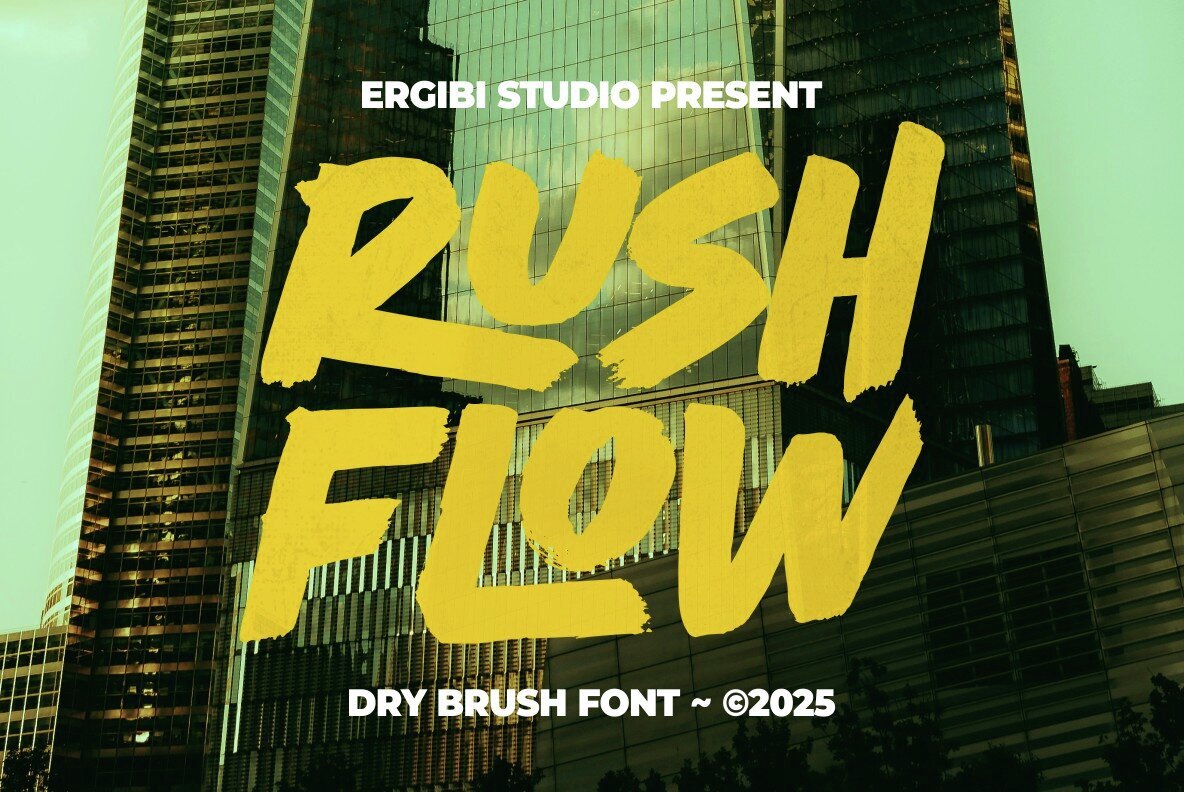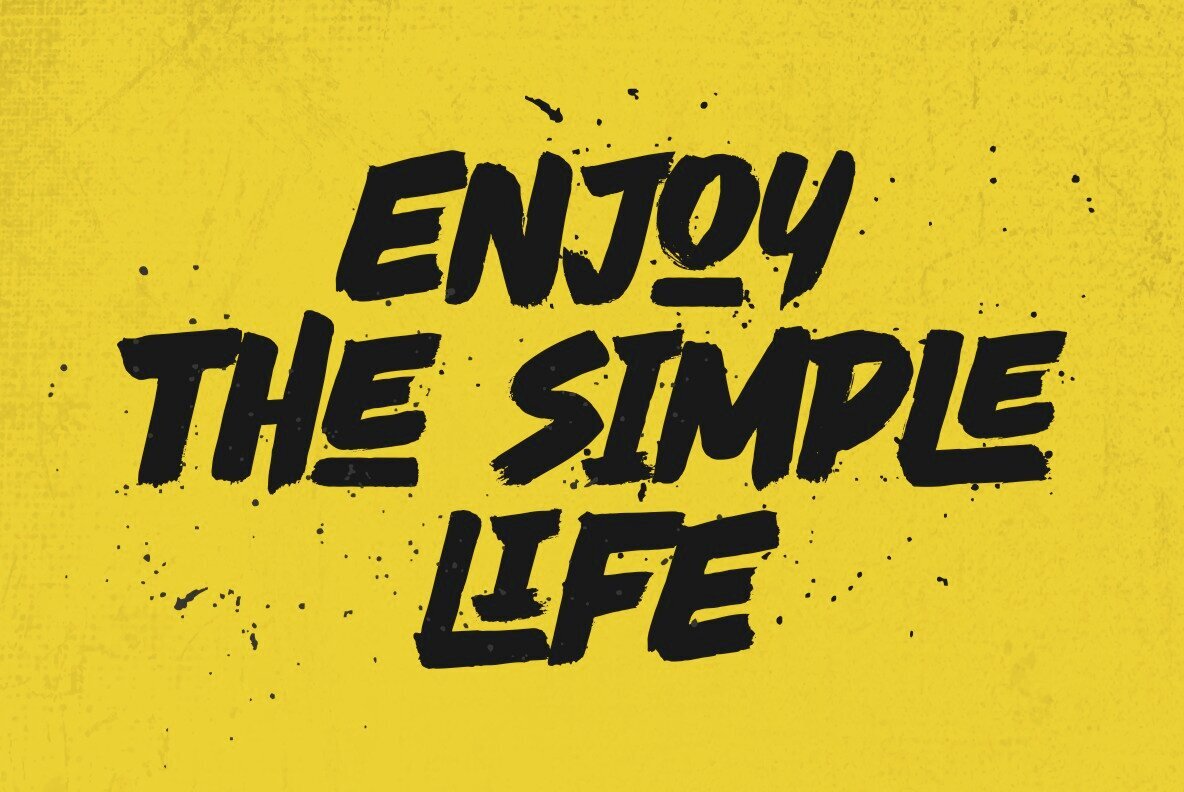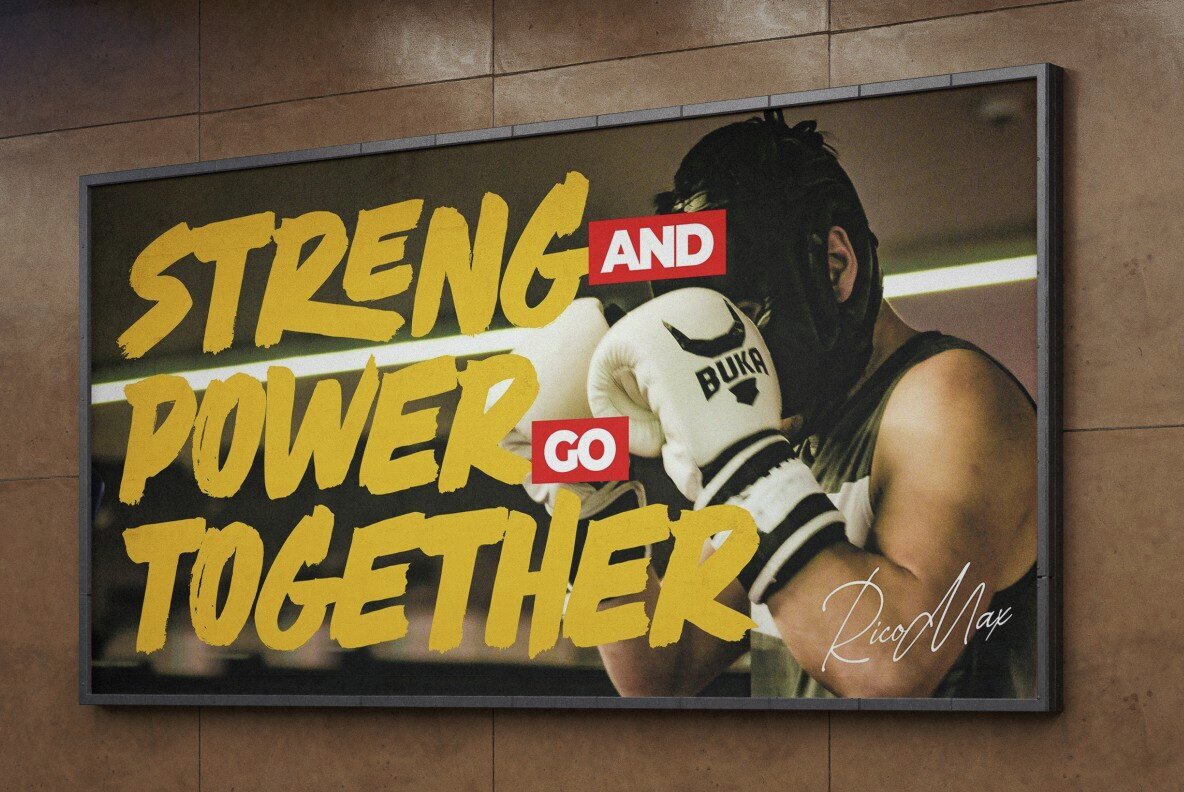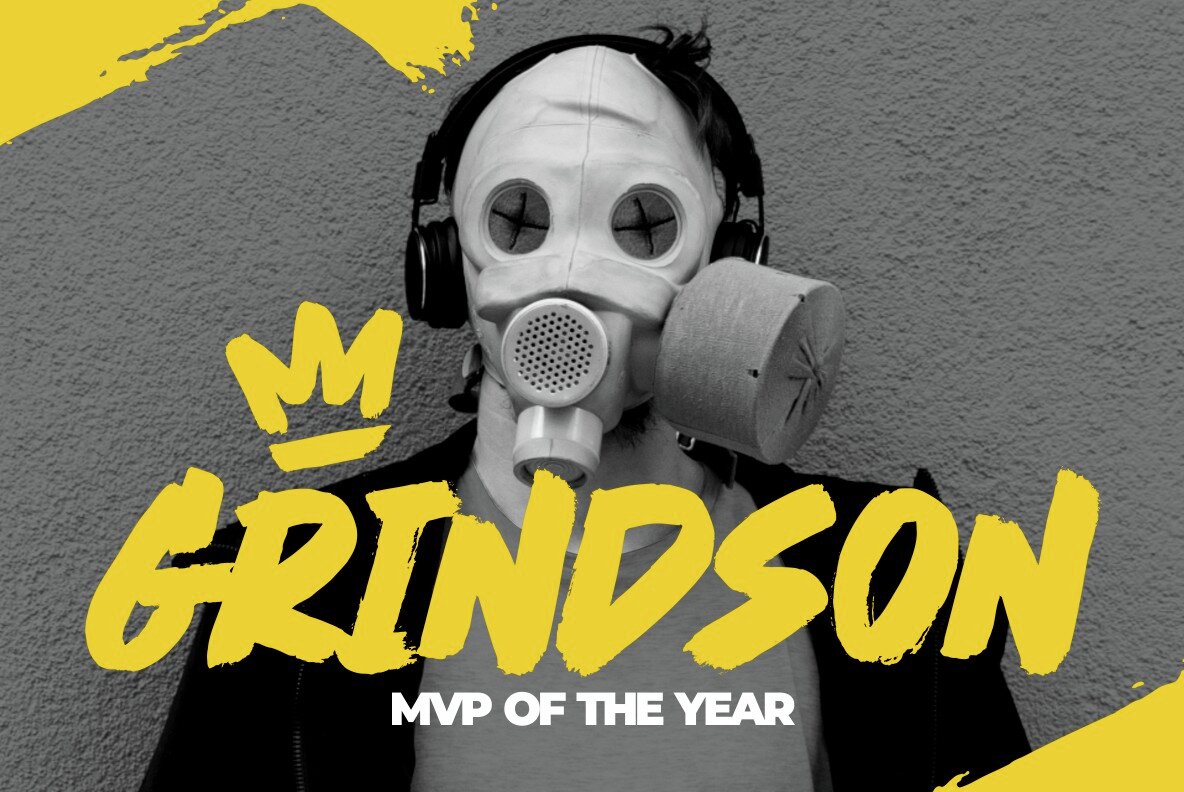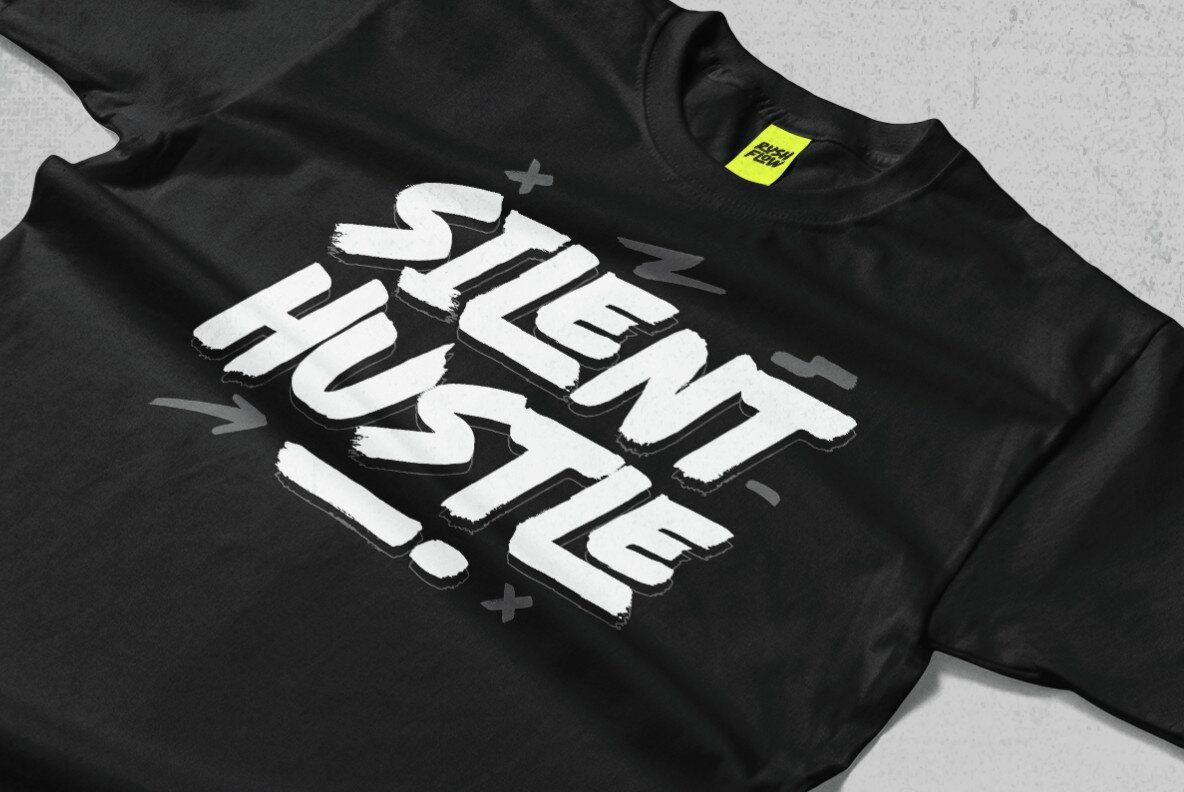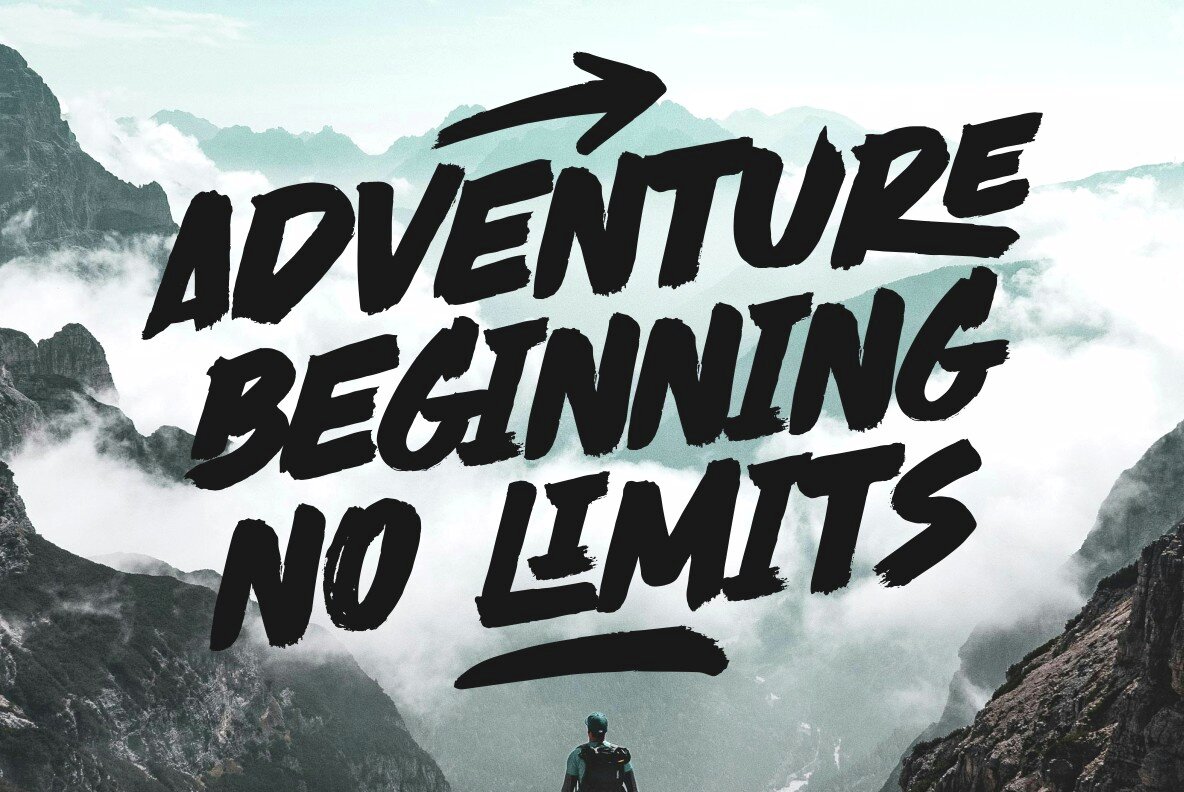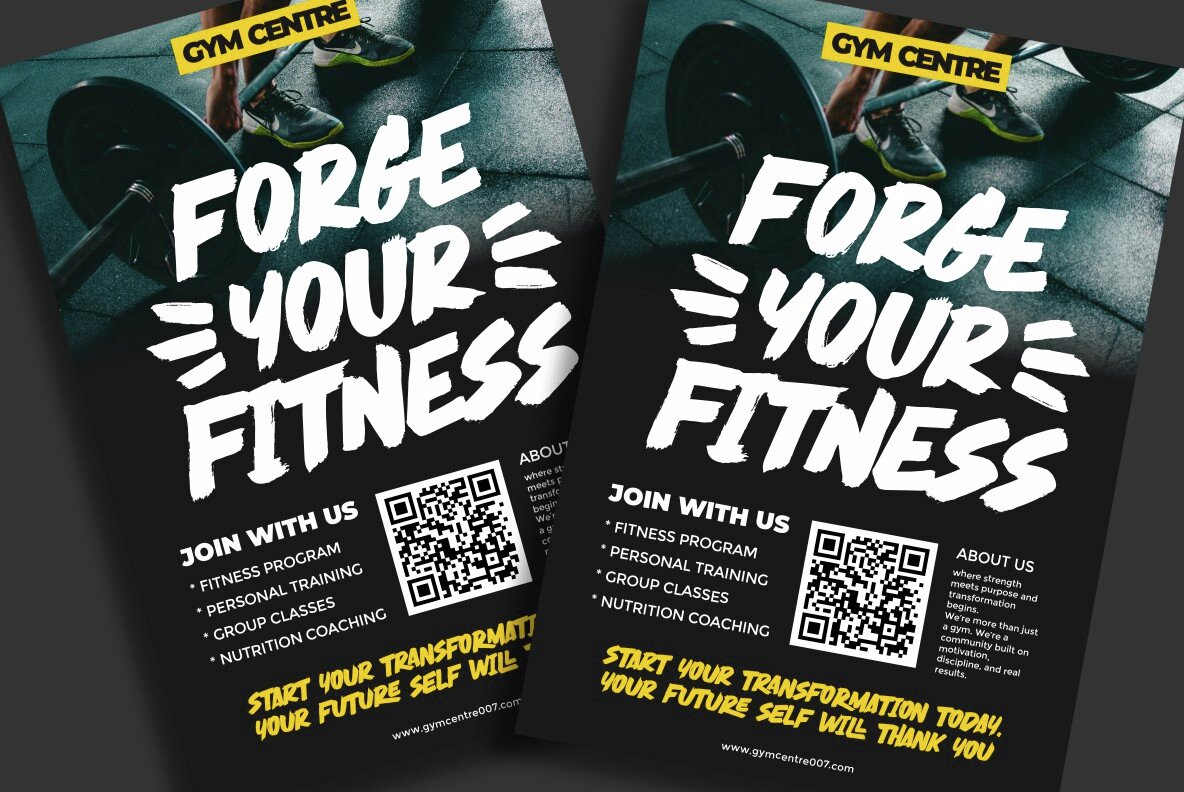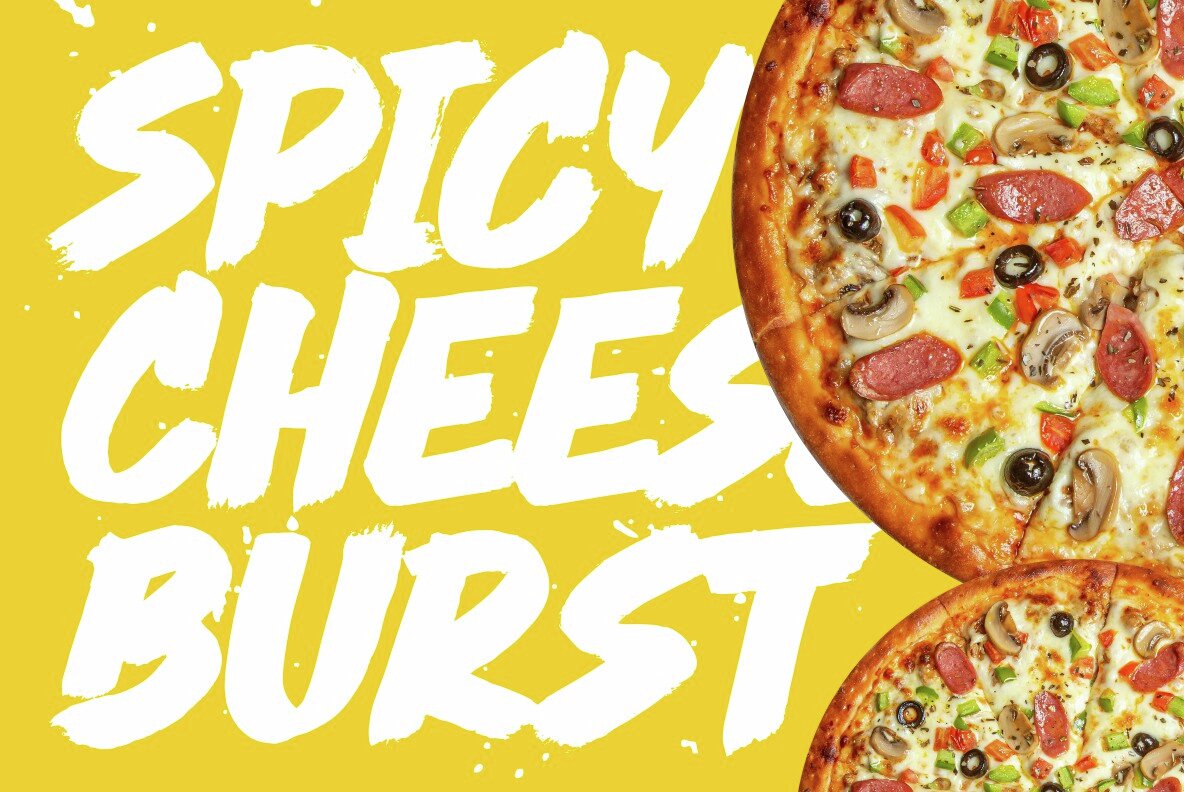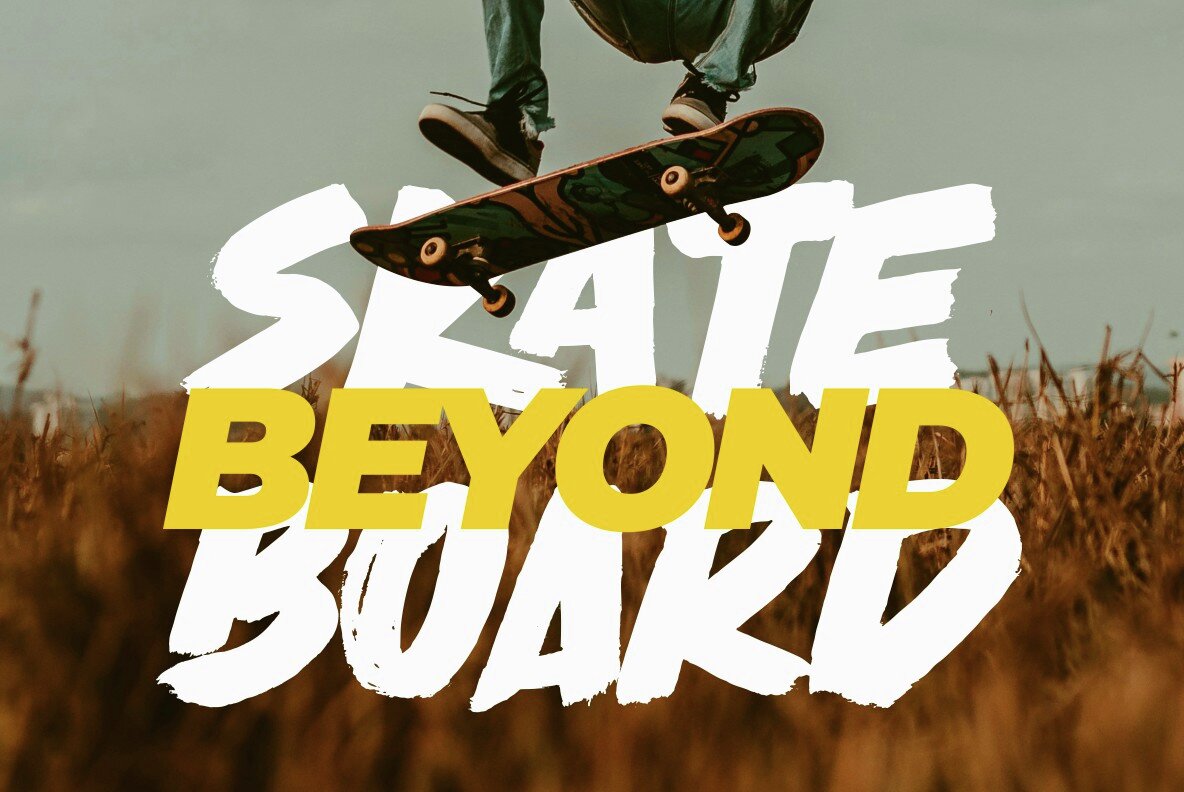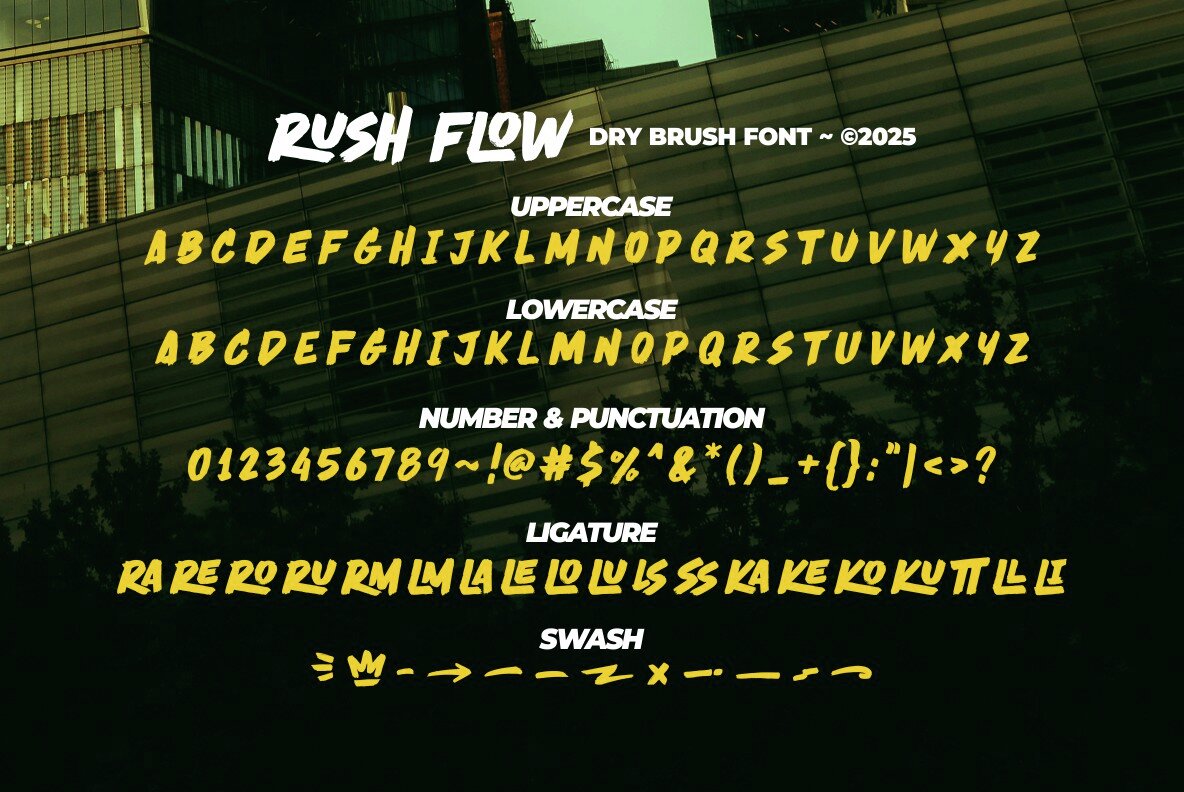
Rush Flow Font
RUSH FLOW
Rush Flow is a dynamic dry brush font that brings an adrenaline-fueled flair to your projects. This all-uppercase typeface is characterized by its thick strokes and gritty textures, ensuring each letter leaves a memorable impression. Ideal for applications ranging from streetwear and posters to branding and packaging, Rush Flow adds an unmistakable urban vibe that commands attention.Rush Flow: A Bold Typeface for Impactful Designs